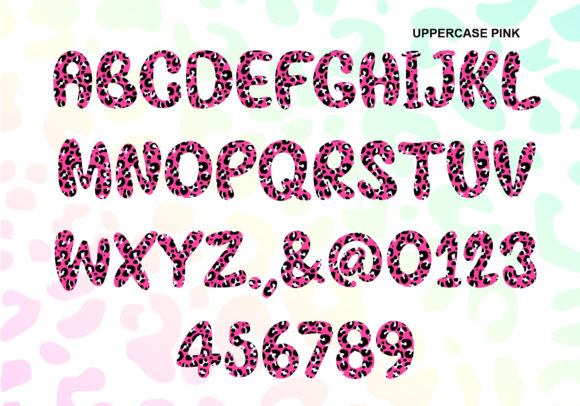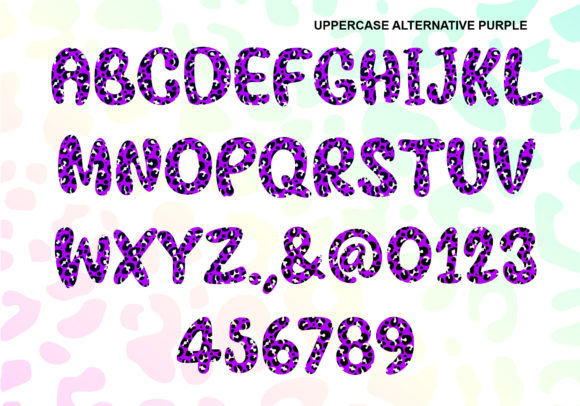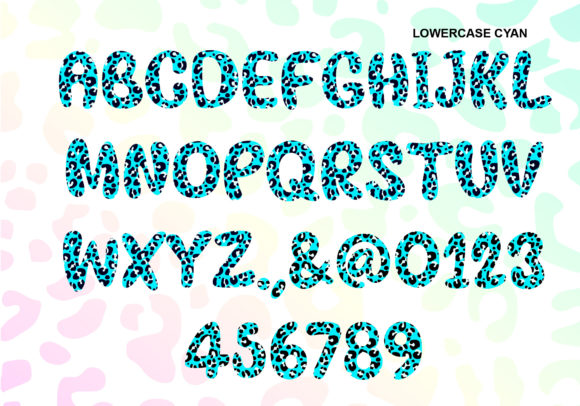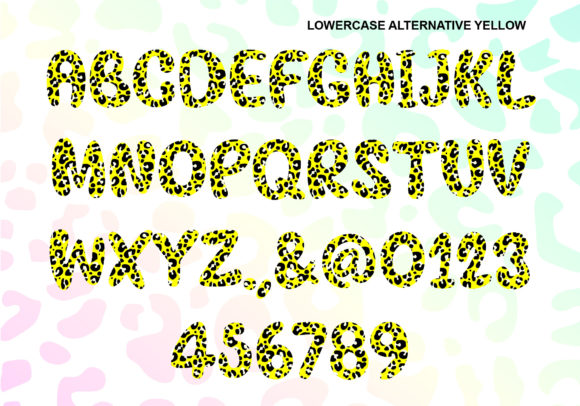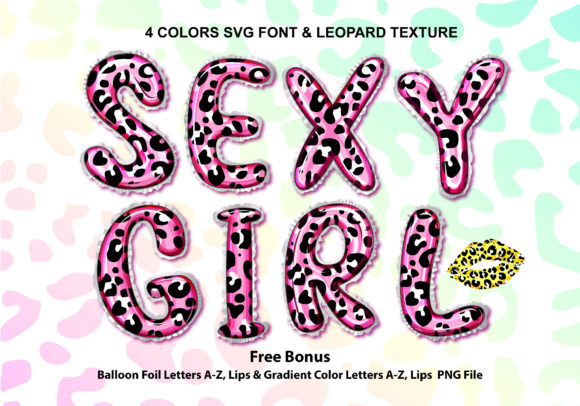
Sexy Girl Font
Sexy Girl is a cool color font, offering a stunning leopard texture. This font is PUA encoded which means you can access all of the glyphs and swashes with ease!
Fall in love with its incredibly versatile style and use it to create spectacular designs!